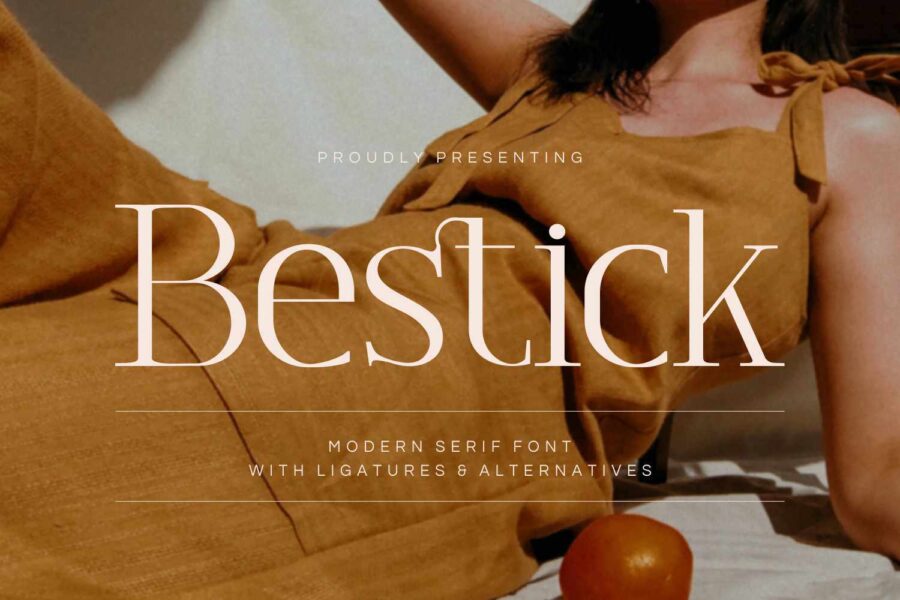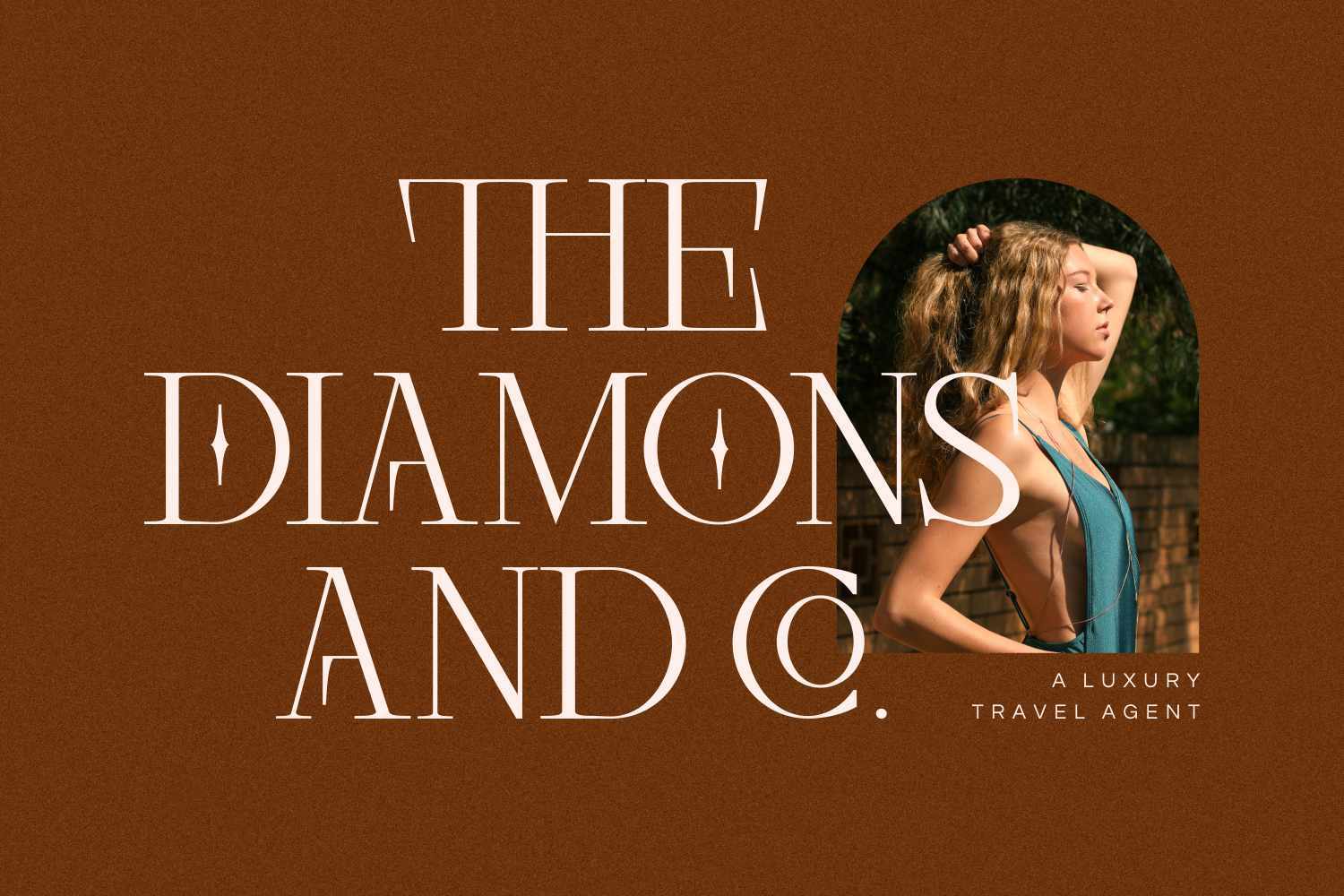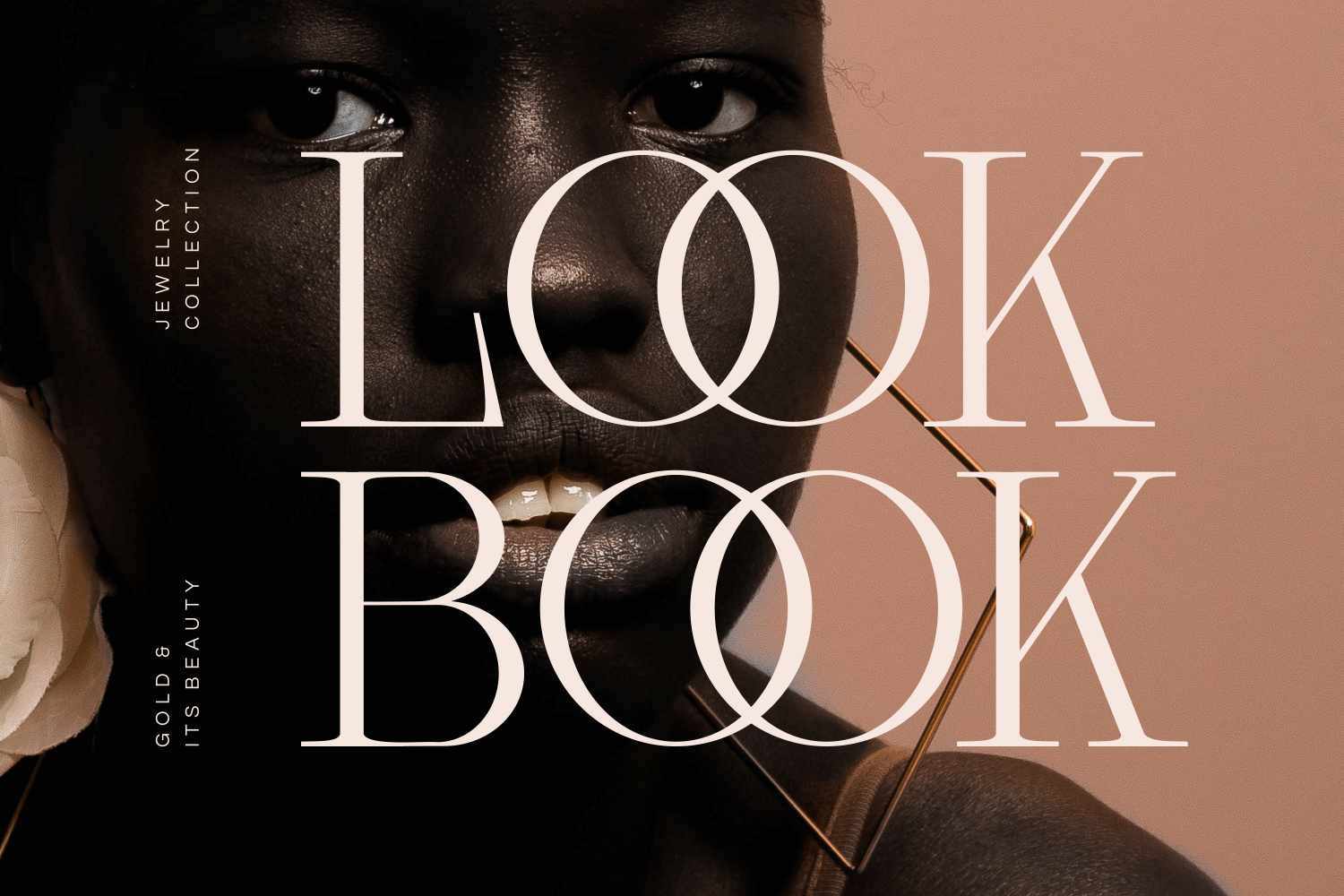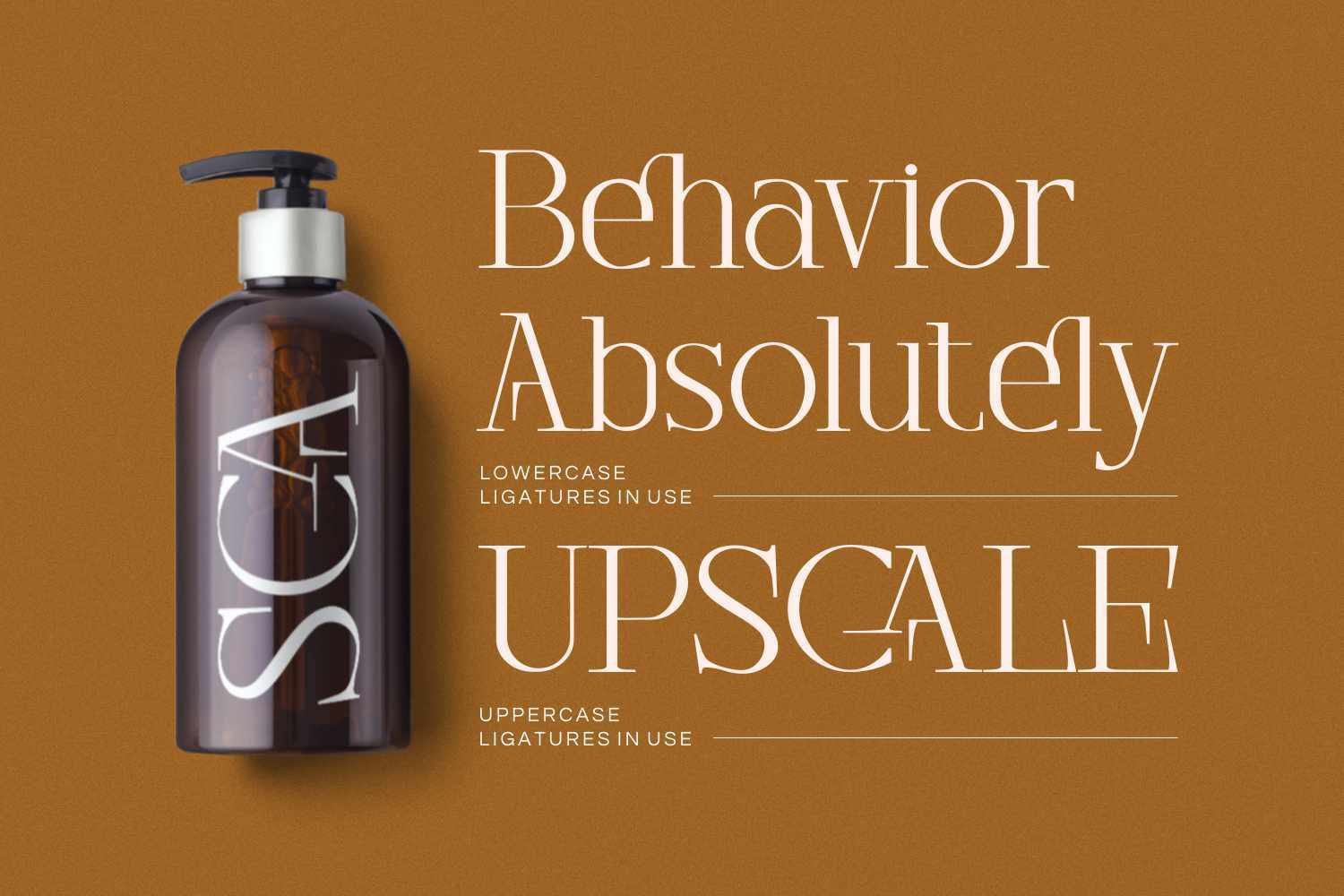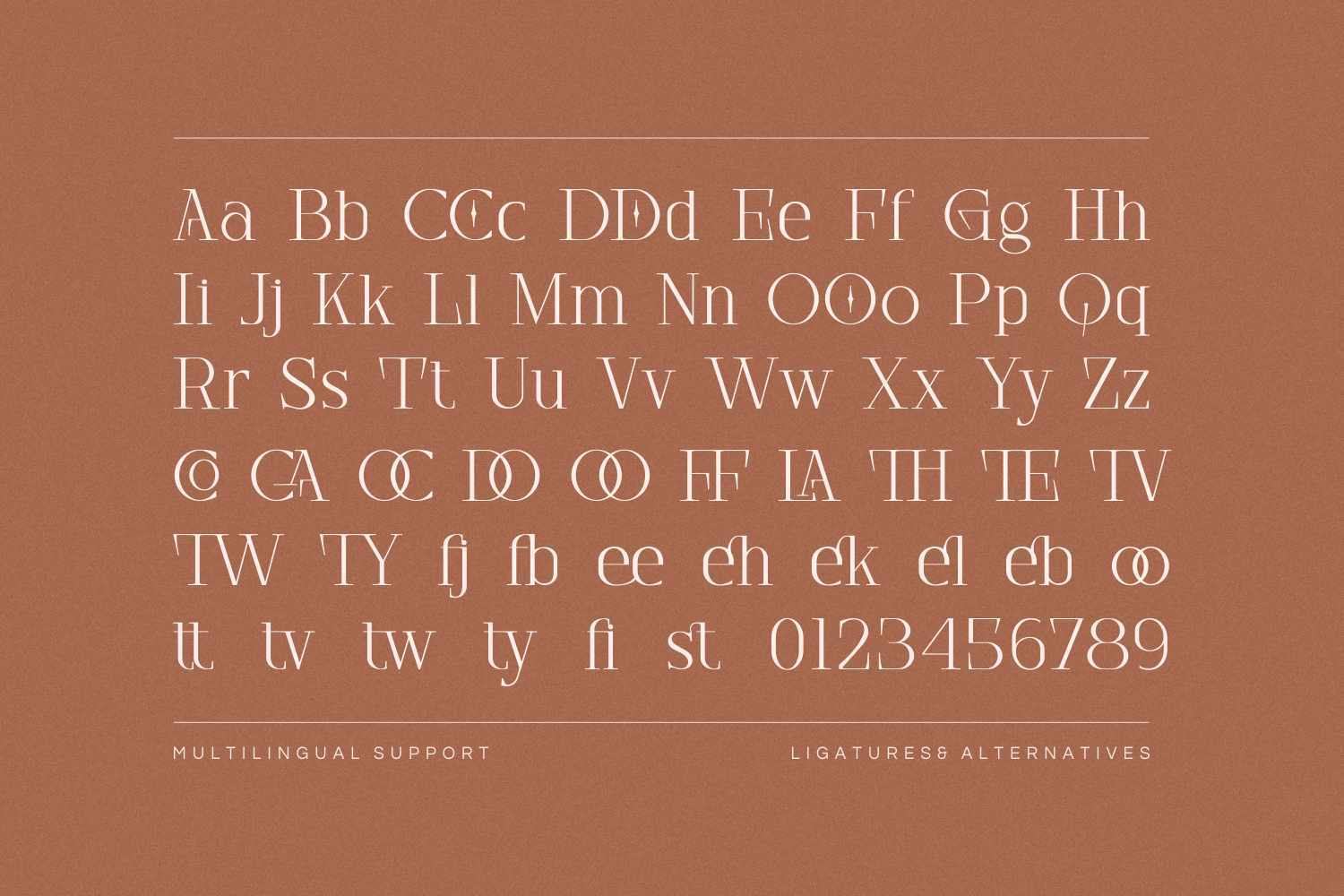
Bestick is a modern serif font that blends elegance with contemporary flair, ideal for upscale branding, fashion editorials, and stylish packaging. With its sleek letterforms, elegant ligatures, and refined alternative characters, Bestick conveys both class and creativity in every design it graces. Whether used in magazine layouts, luxury product labels, or high-end wedding invitations, its timeless aesthetic elevates visual storytelling with finesse.
This typeface features full multilingual support, uppercase and lowercase characters, and a wide selection of ligatures and alternates to ensure flexibility for designers. The sophisticated contrast and graceful proportions make Bestick a go-to choice for editorial elegance and premium branding needs.